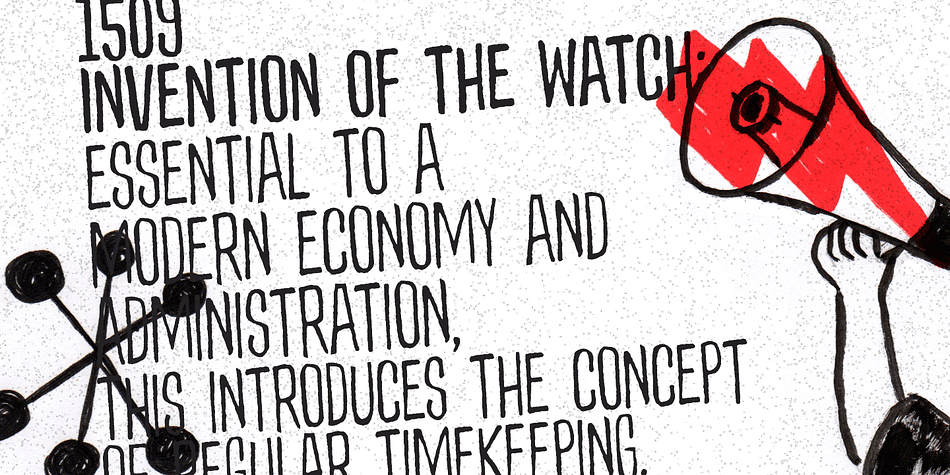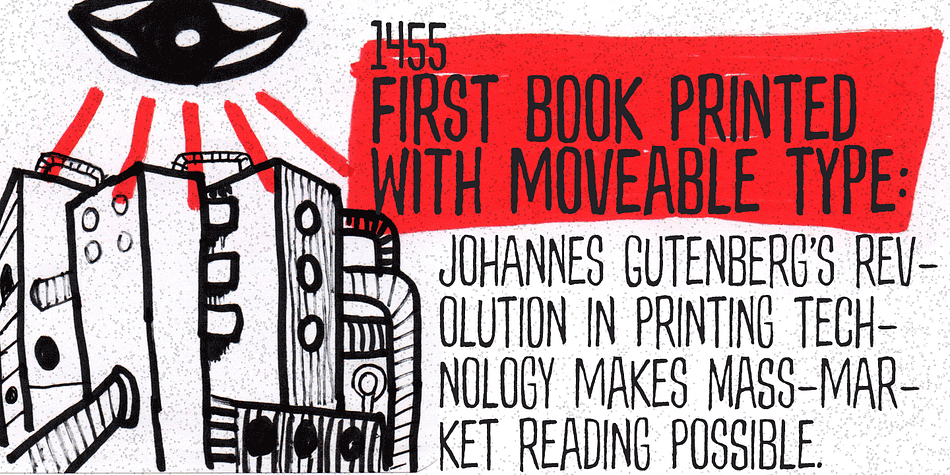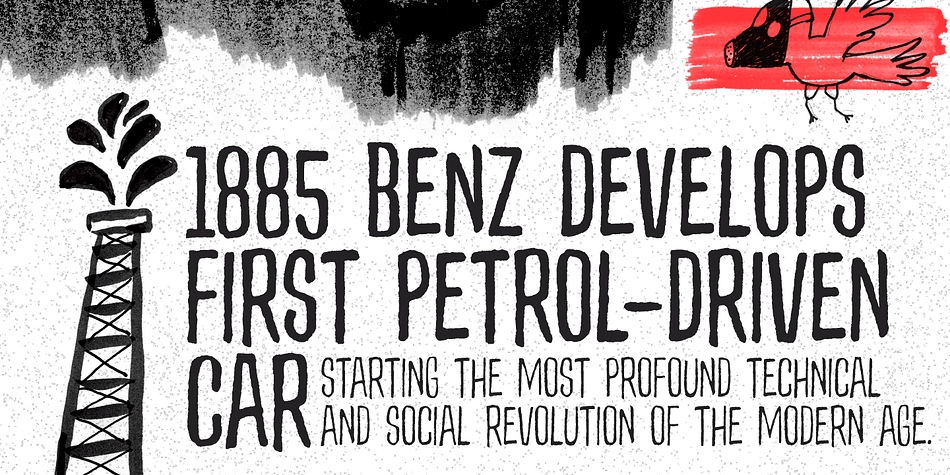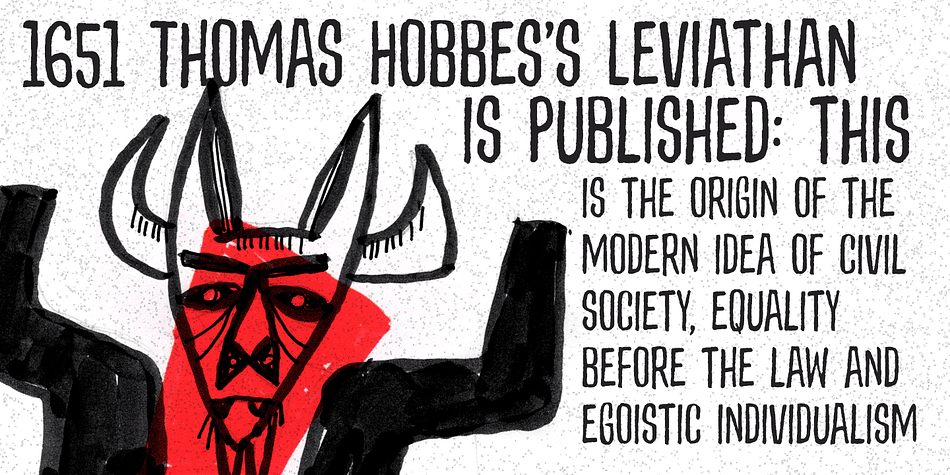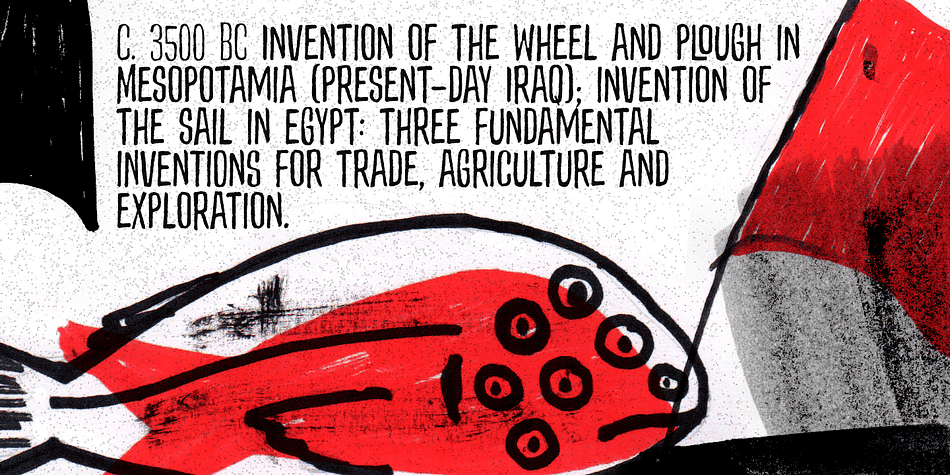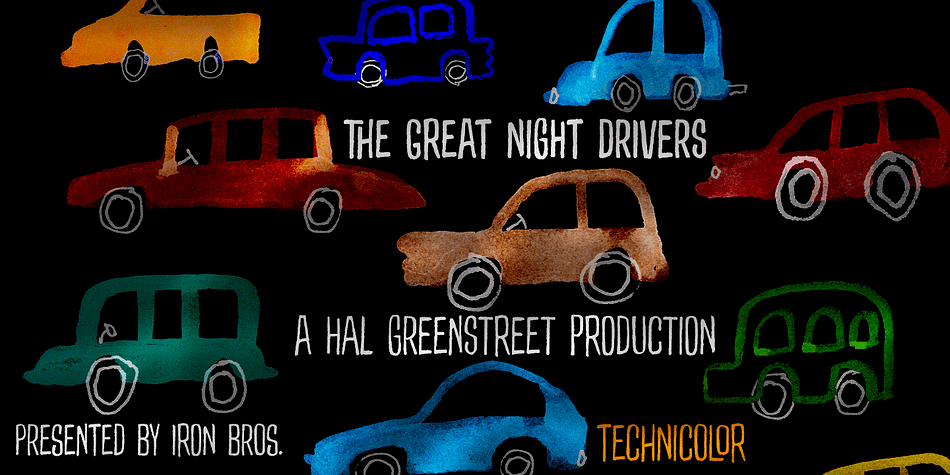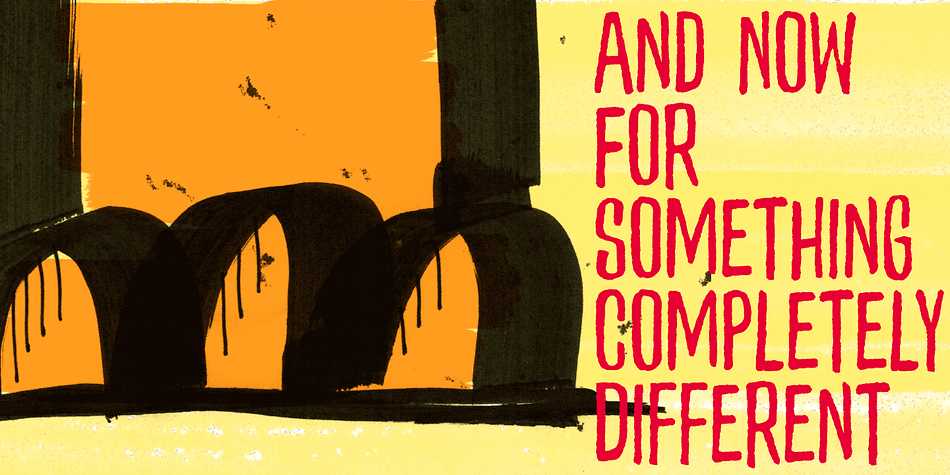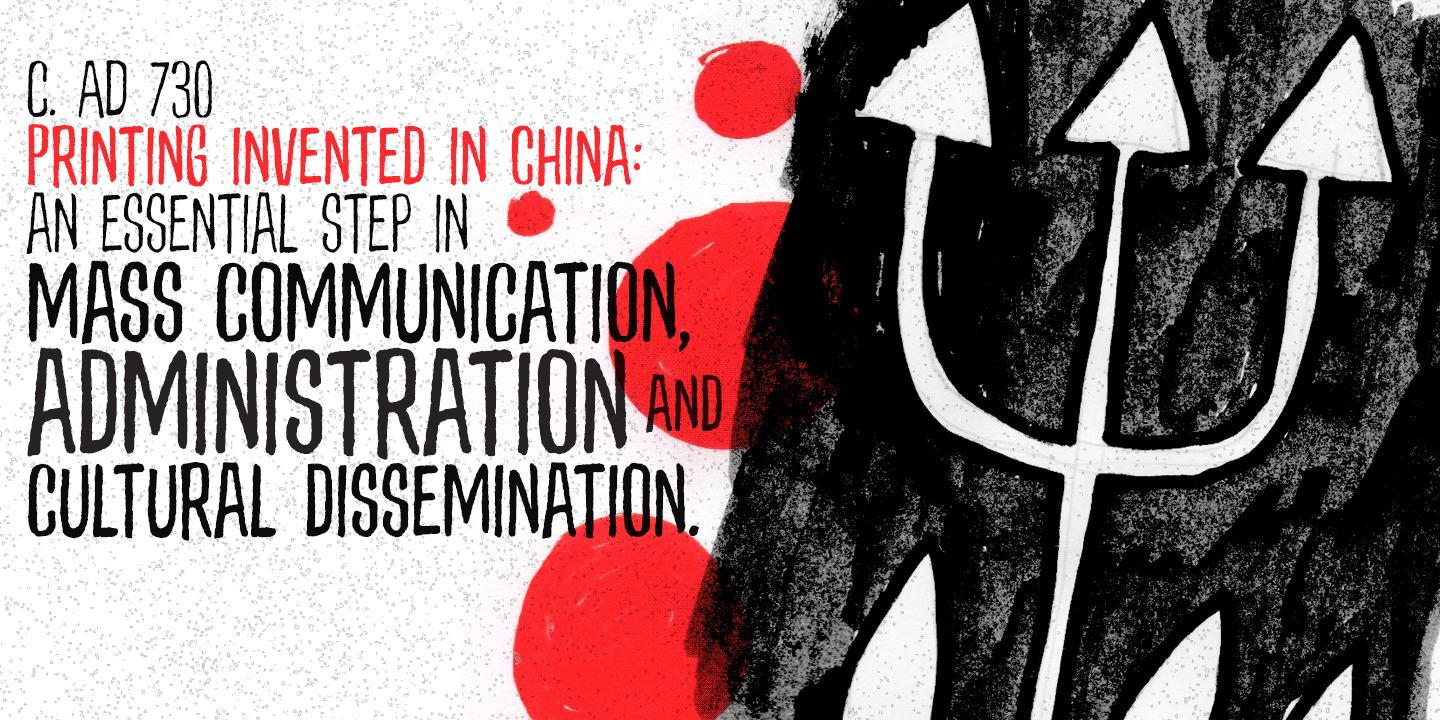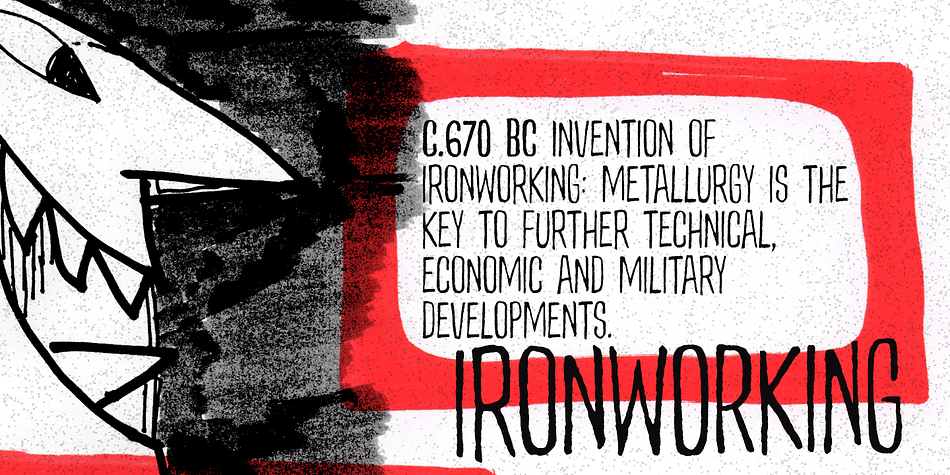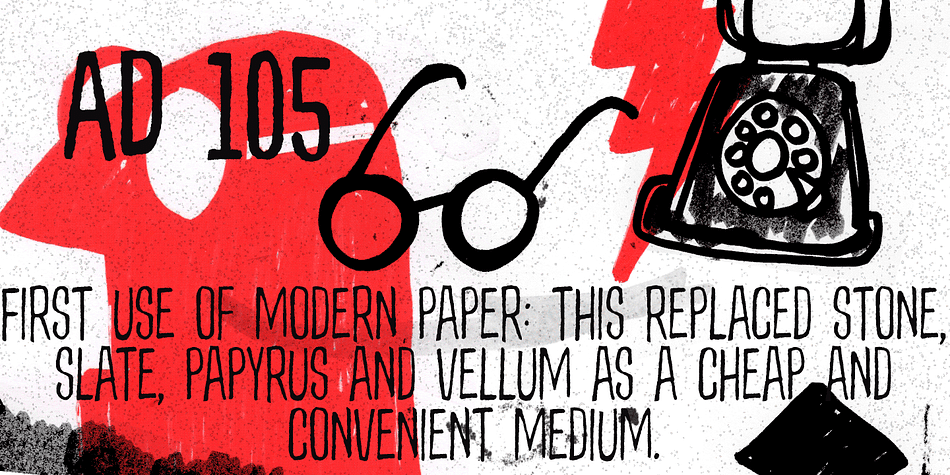
Designed by Ricardo Marcin and Erica Jung, Plumcake is a hand drawn, display sans and hand display font family. This typeface has two styles and was published by PintassilgoPrints.
A bittersweet hand-drawn face, pleasing and assertive. Available in two weights, both all caps, with alternates for each letter. Comes with some ligatures and handy swash alternates to sweeten things up every now and again. Starting… Now!